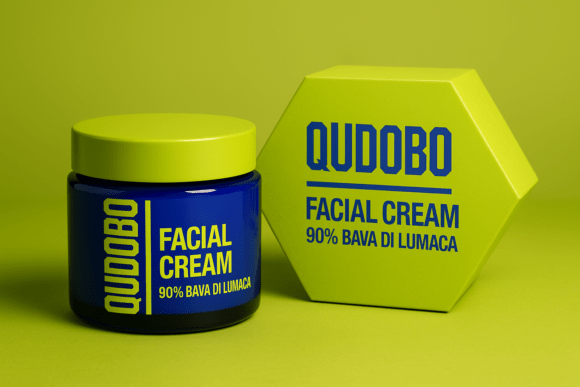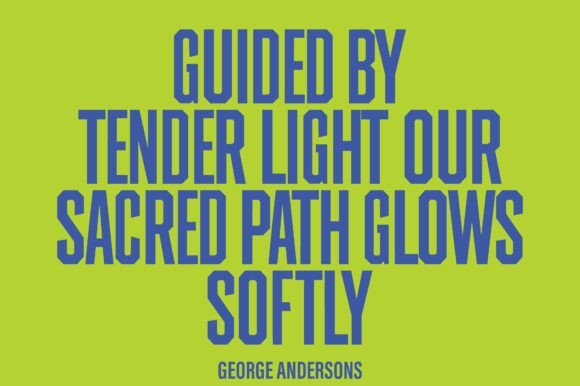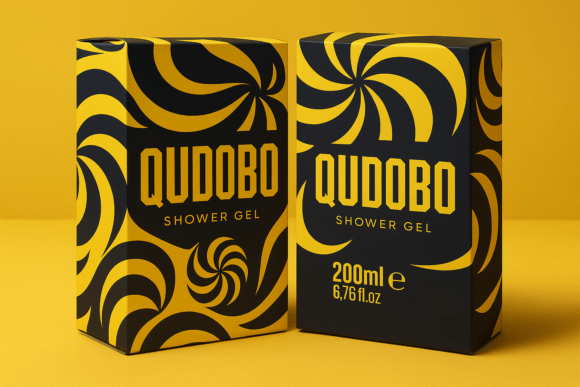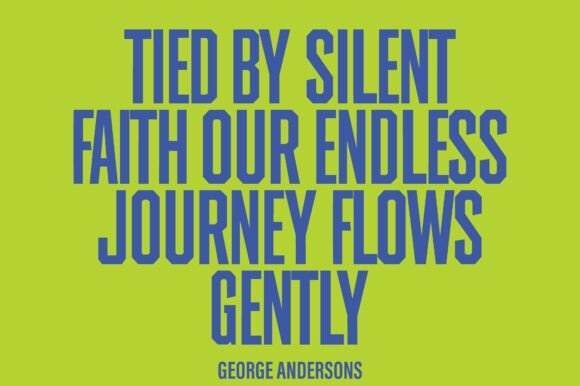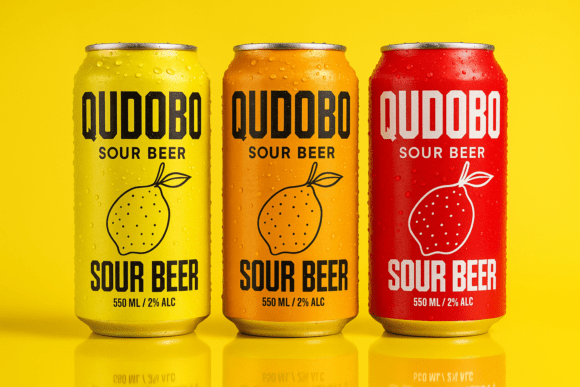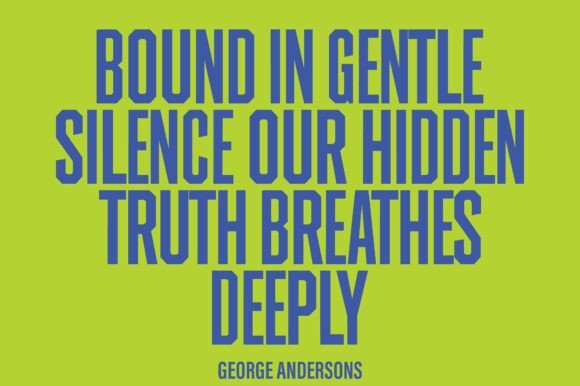
Introduction to Qudobo Font
Qudobo is a towering sans serif font engineered for designs that demand instant attention.
With its ultra-tall proportions, razor-sharp edges, and precision geometry, this typeface delivers a modern, powerful aesthetic ideal for branding, posters, sports graphics, packaging, digital headlines, and futuristic layouts Whether youโre crafting high-energy visuals or minimalist designs with authority, QUDOBO injects confidence, impact, and personality into every letter.
Key Features of Qudobo Font
Why Choose Qudobo Font?
Qudobo Font offers exceptional quality and versatility, making it a valuable addition to your design toolkit. Whether you’re creating for personal projects or commercial use, Qudobo Font delivers professional results.